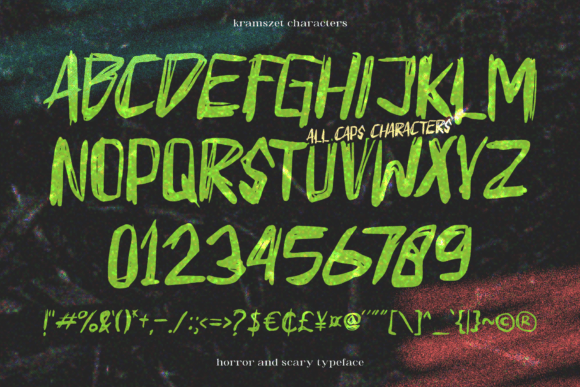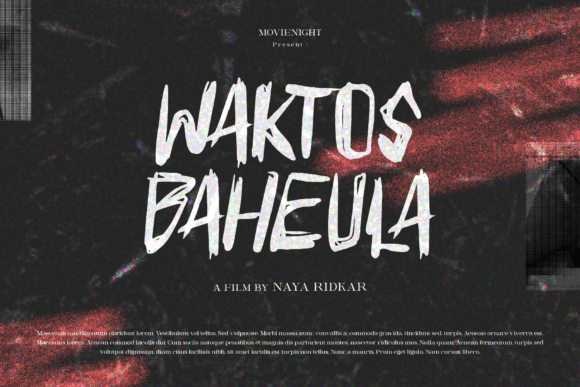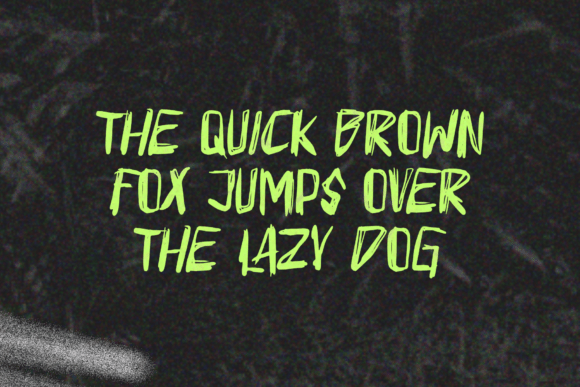
Introduction to Kramszet Font
Have you ever been working on a design project and wished you could add an extra layer of eeriness to your visuals? You’re not alone. Many designers struggle to find the perfect font to convey the right amount of fear or unease in their creative projects. That’s where Kramszet Font comes in – a horror display font that’s sure to send shivers down your audience’s spines.
With its unique blend of creepy characters and high-quality design, Kramszet Font is a valuable resource for designers looking to add an extra layer of depth to their work. Whether you’re creating a spooky poster, a haunting website, or a chilling social media graphic, this font is sure to help you achieve the desired effect.
Key Features of Kramszet Font
- Unique and creative font style that adds a distinctive touch to any design, perfect for making a statement.
Honest Review: Kramszet Font
As a designer, I’m always on the lookout for high-quality design resources to elevate my creative projects. Recently, I stumbled upon the Kramszet Font, and I’m excited to share my honest review.
- ✨ Unique and playful characters that add a touch of personality to any design
- ✨ Highly versatile, suitable for a wide range of creative projects, from branding to editorial content
Overall, I’m impressed with the Kramszet Font’s unique character and versatility. While it may not be perfect for every design scenario, it’s an excellent choice for creative projects that require a touch of personality and whimsy.
The Kramszet Font is a versatile design resource perfect for creative projects. With its high-quality aesthetic, it can elevate any visual content, whether you’re working on a branding project or a simple flyer.
The Kramszet Font is suitable for a wide range of creative projects, including branding, marketing materials, and digital content. Its high-quality aesthetic makes it a great choice for business cards, brochures, and social media graphics.